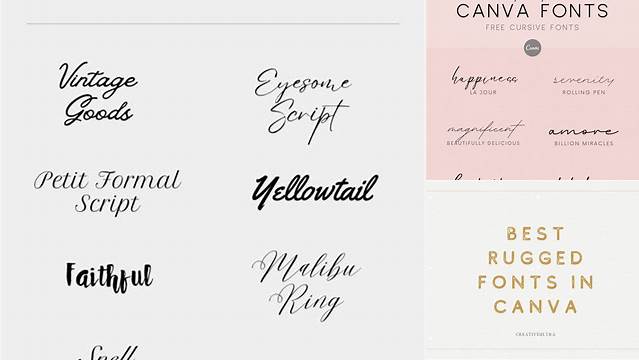
Manly Cursive Fonts For Canva: Rugged & Stylish Designs
Hey guys! Are you looking to add a touch of rugged sophistication to your designs? Then you've come to the right place. In this guide, we're diving deep into the world of manly cursive fonts you can use right inside Canva. We'll explore a variety of fonts that exude strength, character, and a touch of elegance, perfect for branding, logos, posters, and more. So, buckle up and get ready to discover the best manly cursive fonts Canva has to offer!
1. Understanding Manly Cursive Fonts
So, what exactly makes a cursive font "manly"? It's all about the impression it creates. Think strong, bold strokes, a hint of roughness, and an overall feeling of confidence. Forget the overly delicate and flowery scripts; we're going for fonts that command attention. Manly cursive fonts often incorporate thicker lines, sharper angles, and a sense of handcrafted quality. They evoke feelings of tradition, craftsmanship, and understated power. Choosing the right manly cursive fonts can drastically impact your design's message. Imagine a logo for a whiskey brand – a bold, slightly weathered cursive font would convey history and quality far better than a whimsical, playful script. For a brand geared toward an upscale men's grooming product, you will want to use manly cursive fonts that reflect your target demographics. This section will delve into the subtle nuances that differentiate manly cursive fonts from their more feminine counterparts.
2. The Psychology of Font Choice for Men's Brands
Ever wondered why certain fonts just feel more masculine? It's no accident! Font psychology plays a huge role in how we perceive brands. Studies have shown that bolder, sans-serif fonts are often associated with strength and authority, while certain manly cursive fonts can convey tradition, craftsmanship, and luxury. When choosing a font for a men's brand, think about the emotions you want to evoke. Do you want to project ruggedness? Sophistication? Or perhaps a blend of both? The font you select will be a key component in communicating your brand's personality and values. And manly cursive fonts can be a fantastic, unique way to do this. In essence, font choice becomes a powerful tool for shaping consumer perception.
3. Top 5 Manly Cursive Fonts Available in Canva
Alright, let's get to the good stuff! Here are five awesome manly cursive fonts you can find and use directly within Canva:
- Lobster Two: A bold, condensed script with a vintage feel.
- Pacifico: A casual yet confident cursive with a slight retro vibe.
- Permanent Marker: A rough and ready script that looks handwritten.
- Great Vibes: A flowing and elegant script with a touch of boldness.
- Yellowtail: A classic, vintage-inspired script with a slightly rough texture.
Each of these fonts brings something unique to the table, so experiment and see which one best fits your design. Remember, the best manly cursive fonts will be the one that meshes the best with your project. Be sure to check out Canva's extensive library to find other manly cursive fonts.
4. How to Use Cursive Fonts Effectively in Canva
Okay, you've picked your perfect manly cursive fonts. Now what? Here are a few tips for using them effectively in Canva:
- Don't Overdo It: Use cursive fonts sparingly, especially for body text. They're best used for headings, logos, and short phrases.
- Pair Wisely: Combine your cursive font with a clean, legible sans-serif font for body text. This creates a nice visual contrast and ensures readability.
- Consider Kerning and Leading: Adjust the spacing between letters (kerning) and lines (leading) to improve readability and visual appeal.
- Color Matters: Choose colors that complement your font and overall design. Darker colors often enhance the boldness of manly cursive fonts.
- Size and Placement: Make sure your cursive font is large enough to be easily readable, but not so large that it overwhelms the design. Think about placement so that it accentuates other components of your project.
5. Manly Cursive Fonts for Logo Design in Canva
Creating a logo that exudes masculinity? Manly cursive fonts can be a great choice, but proceed with caution. A cursive logo needs to be legible and memorable. Opt for bolder scripts with clear letterforms. Consider adding a simple icon or graphic element to further enhance your brand identity. And always, always test your logo in various sizes to ensure it remains readable. When done right, a manly cursive fonts logo can convey sophistication, heritage, and a sense of timeless style.
6. Manly Cursive Fonts for Branding Materials
Consistency is key when it comes to branding. Once you've chosen your manly cursive fonts for your logo, extend it to your other branding materials, such as business cards, letterheads, and social media graphics. This will help create a cohesive and recognizable brand identity. However, remember the "don't overdo it" rule. Use your cursive font strategically to highlight key information and add a touch of personality, not overwhelm the other elements.
7. Manly Cursive Fonts for T-Shirt Designs
Designing a t-shirt with a masculine vibe? Manly cursive fonts can add a cool, vintage-inspired touch. Think about using them for quotes, slogans, or even just a single word that embodies your brand's values. Consider the placement of the text on the t-shirt and how it interacts with any other graphics. A well-chosen manly cursive fonts can elevate your t-shirt design and make it stand out from the crowd.
8. Manly Cursive Fonts for Website Headers
Your website header is prime real estate for making a strong first impression. Using manly cursive fonts in your header can add a touch of personality and sophistication. However, ensure the font is legible and doesn't slow down your page load time. Pair it with a clear, easy-to-read sans-serif font for the rest of your website's text. The ideal situation is to use manly cursive fonts to make a statement, without hindering user experience.
9. Pairing Manly Cursive Fonts with Other Fonts
The art of font pairing is crucial for creating visually appealing and balanced designs. When using manly cursive fonts, it's generally best to pair them with clean, simple sans-serif fonts like Arial, Helvetica, or Open Sans. This creates a nice contrast and ensures readability. Avoid pairing cursive fonts with other overly decorative fonts, as this can create a cluttered and confusing design. In essence, your main goal when selecting manly cursive fonts for your project should be balance.
10. The Importance of Legibility with Cursive Fonts
No matter how cool a cursive font looks, legibility should always be your top priority. If your audience can't read your message, your design is failing. Choose manly cursive fonts that have clear, well-defined letterforms. Avoid fonts with overly intricate flourishes or excessively thin strokes. Test your font in various sizes and on different backgrounds to ensure it remains easily readable. For certain design types, it may be useful to test several types of manly cursive fonts with a focus group.
11. Exploring Vintage and Retro Manly Cursive Fonts
For a touch of nostalgia and old-school charm, explore vintage and retro manly cursive fonts. These fonts often feature a slightly rough or weathered texture, giving them a handcrafted feel. They're perfect for designs that evoke a sense of history, tradition, or craftsmanship. Think about using them for logos, posters, or even wedding invitations.
12. Modern Takes on Manly Cursive Fonts
Not all manly cursive fonts are created equal. Some modern takes on cursive fonts incorporate geometric shapes, bold strokes, and a more minimalist aesthetic. These fonts can be a great choice for brands that want to project a sense of innovation and sophistication. For example, manly cursive fonts that have a boxier shape may be a better choice.
13. Canva Pro Features for Enhanced Font Options
If you're serious about your design work, consider upgrading to Canva Pro. This will unlock a wider range of fonts, including premium manly cursive fonts that aren't available in the free version. You'll also gain access to advanced features like custom font uploading, which allows you to use any font you want, regardless of whether it's in Canva's library.
14. Finding Free Manly Cursive Font Alternatives
On a budget? No problem! There are plenty of websites that offer free manly cursive fonts for commercial use. Just be sure to check the font's license before using it to ensure it's compatible with your project. Websites like DaFont, Font Squirrel, and Google Fonts are great places to start your search.
15. Manly Cursive Fonts for Social Media Graphics
Stand out from the crowd on social media with eye-catching graphics that incorporate manly cursive fonts. Use them for quote graphics, promotional banners, or even just to add a touch of personality to your posts. Just remember to keep your text concise and easy to read, as people tend to scroll quickly through social media feeds.
16. Creating Contrast with Manly Cursive Fonts
Contrast is a key element of good design. When using manly cursive fonts, think about creating contrast with other design elements, such as color, shape, and imagery. For example, you could pair a bold cursive font with a simple black and white photograph to create a striking visual effect. If you're looking at manly cursive fonts, keep in mind that not all fonts will offer the same level of contrasts.
17. Manly Cursive Fonts and Color Psychology
Just like fonts, colors also evoke specific emotions and associations. When choosing colors to pair with your manly cursive fonts, consider the message you want to convey. Darker colors like black, gray, and navy blue often convey strength and sophistication, while warmer colors like red and orange can evoke energy and passion.
18. Manly Cursive Fonts for Print vs. Digital Designs
Keep in mind that fonts can appear differently in print than they do on screen. When designing for print, choose manly cursive fonts that have clear, well-defined letterforms that will reproduce well on paper. Avoid fonts with excessively thin strokes, as these may disappear or become distorted during the printing process.
19. Using Canva's Text Effects with Manly Cursive Fonts
Canva offers a variety of text effects that can enhance your manly cursive fonts. Experiment with shadows, outlines, and glows to add depth and dimension to your text. Just be careful not to overdo it, as too many effects can make your design look cluttered and unprofessional. For example, a subtle shadow can make manly cursive fonts pop off the background.
20. The Future of Manly Cursive Fonts in Design
The world of design is constantly evolving, and so are manly cursive fonts. We're seeing more and more designers experimenting with new and innovative ways to use cursive fonts, incorporating them into everything from logos to websites to mobile apps. As technology advances, we can expect to see even more exciting developments in the world of manly cursive fonts.
21. Mastering Kerning and Tracking for Manly Cursive Fonts
Kerning (adjusting the space between individual letters) and tracking (adjusting the space between all letters in a word or phrase) are essential skills for any designer. Mastering these techniques will allow you to fine-tune the appearance of your manly cursive fonts and ensure optimal readability. This is especially important for cursive fonts, as the letterforms are often interconnected.
22. Adding Texture and Effects to Manly Cursive Fonts in Canva
Canva allows you to add textures and effects to your manly cursive fonts to give them a more unique and personalized look. Experiment with textures like grunge, wood, or metal to add a sense of ruggedness or vintage charm. You can also use effects like drop shadows, glows, and bevels to add depth and dimension to your text.
23. Manly Cursive Fonts and the Importance of White Space
White space (also known as negative space) is the empty space around your design elements. It's just as important as the elements themselves, as it helps to create visual balance and improve readability. When using manly cursive fonts, be sure to leave plenty of white space around your text to give it room to breathe.
24. Creating a Manly Aesthetic with Cursive Fonts and Imagery
The images you choose to pair with your manly cursive fonts can greatly impact the overall aesthetic of your design. For a masculine vibe, consider using images of rugged landscapes, vintage motorcycles, or strong, confident men. Avoid overly feminine or whimsical images, as these may clash with the manly cursive fonts.
25. Using Manly Cursive Fonts for Event Invitations
Planning a bachelor party, a whiskey tasting, or some other manly event? Manly cursive fonts can be a great choice for your invitations. Choose a font that reflects the tone of the event and pair it with masculine colors and imagery. A well-designed invitation can set the stage for a memorable experience. Using manly cursive fonts can evoke sophistication and style.
26. Manly Cursive Fonts for Book Covers
If you're designing a book cover with a masculine theme, consider using manly cursive fonts for the title or author's name. Choose a font that reflects the genre of the book and the personality of the main character. A well-chosen font can help to attract readers and convey the essence of the story. If it is a historical fiction novel, manly cursive fonts can play a significant role in the design.
27. How Manly Cursive Fonts Can Evoke Emotion
Manly cursive fonts have the power to evoke a range of emotions, from strength and confidence to sophistication and nostalgia. The key is to choose a font that aligns with the message you want to convey and the emotions you want to elicit in your audience. By understanding the psychology of font choice, you can create designs that resonate with your target audience on a deeper level.
28. Manly Cursive Fonts: Balancing Style and Readability
The ultimate challenge with manly cursive fonts is finding the right balance between style and readability. You want a font that looks cool and unique, but you also need to make sure it's easy to read. Test your font in various sizes and on different backgrounds to ensure it remains legible. If necessary, adjust the kerning and tracking to improve readability without sacrificing style.
29. Manly Cursive Fonts and Target Audience
Before choosing a manly cursive fonts, think about your target audience. Who are you trying to reach? What are their values and interests? Choose a font that resonates with your target audience and aligns with their expectations. A font that works well for one audience may not work well for another. Also, manly cursive fonts may not work well with some audiences.
30. Staying Updated with Manly Cursive Font Trends
The world of font design is constantly evolving, so it's important to stay updated with the latest trends. Follow design blogs, attend conferences, and experiment with new fonts to keep your designs fresh and relevant. By staying ahead of the curve, you can ensure that your designs always make a strong impression. Exploring current trends in manly cursive fonts can help you stay relevant and keep your designs looking modern and sharp.